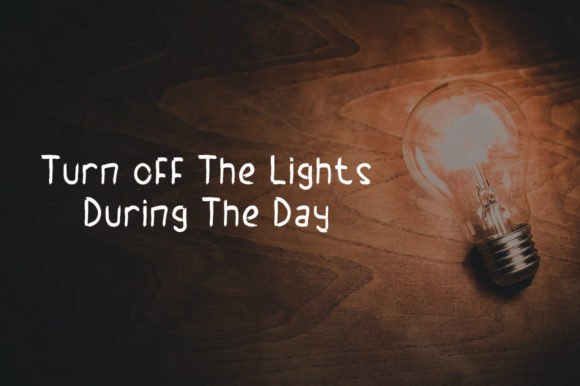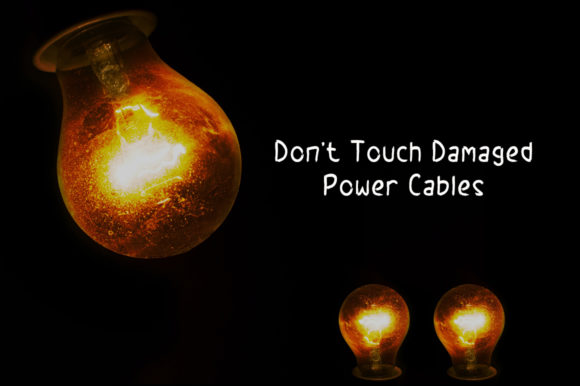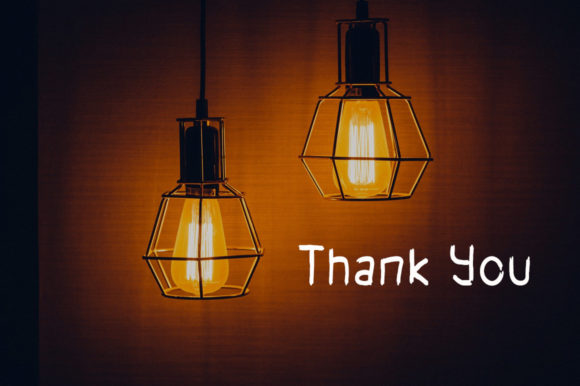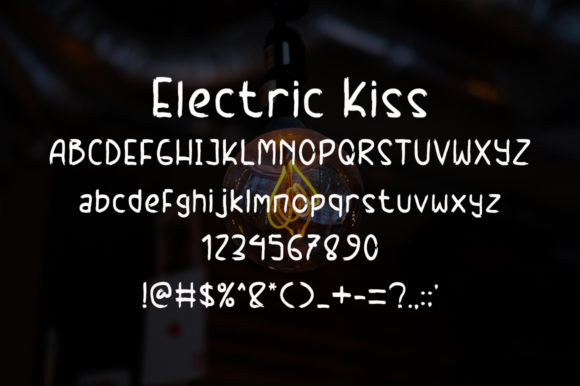
Introducing Electric Kiss Font: The Sweet and Friendly Handwritten Font
Are you a designer or crafter looking for a unique and versatile font to elevate your creative projects? Look no further than Electric Kiss Font, a sweet and friendly handwritten font that’s perfect for a wide range of designs. With its natural and distinctive style, Electric Kiss Font is sure to capture the attention of your audience and leave a lasting impression.
What is Electric Kiss Font?
Electric Kiss Font is a beautifully crafted handwritten font that’s designed to add a touch of warmth and personality to your designs. Its sweet and friendly style makes it perfect for projects that require a personal and approachable feel, such as branding, packaging, and marketing materials. Whether you’re creating a logo, business card, or social media graphic, Electric Kiss Font is sure to bring a smile to your audience’s face.
Key Features of Electric Kiss Font
- Unique and Natural Style: Electric Kiss Font boasts a distinctive and natural style that’s perfect for designers and crafters who want to add a personal touch to their projects.
- Versatile: This font is incredibly versatile and can be used for a wide range of designs, from logos and branding materials to packaging and marketing collateral.
- Handwritten: Electric Kiss Font is a handwritten font that’s designed to mimic the natural flow and imperfections of handwriting, giving it a warm and personal feel.
- Easily Readable: Despite its unique style, Electric Kiss Font is easily readable, making it perfect for body text and headlines.
Use Cases for Electric Kiss Font
So, what can you use Electric Kiss Font for? The possibilities are endless! Here are a few ideas to get you started:
- Branding and Logo Design: Electric Kiss Font is perfect for creating unique and memorable logos that reflect your brand’s personality.
- Wedding and Party Decor: Add a touch of whimsy and romance to your wedding or party decor with Electric Kiss Font.
- Social Media Graphics: Use Electric Kiss Font to create eye-catching social media graphics that stand out from the crowd.
- Packaging Design: Electric Kiss Font is perfect for packaging design, adding a personal touch to your products and making them more appealing to customers.
Tips for Using Electric Kiss Font
Here are a few tips for getting the most out of Electric Kiss Font:
- Experiment with Colors: Electric Kiss Font looks great in a variety of colors, so don’t be afraid to experiment and find the perfect hue for your design.
- Mix and Match with Other Fonts: Electric Kiss Font pairs well with a range of other fonts, so try mixing and matching it with different styles to create a unique look.
- Use it for Headlines and Body Text: Electric Kiss Font is easily readable, making it perfect for both headlines and body text.